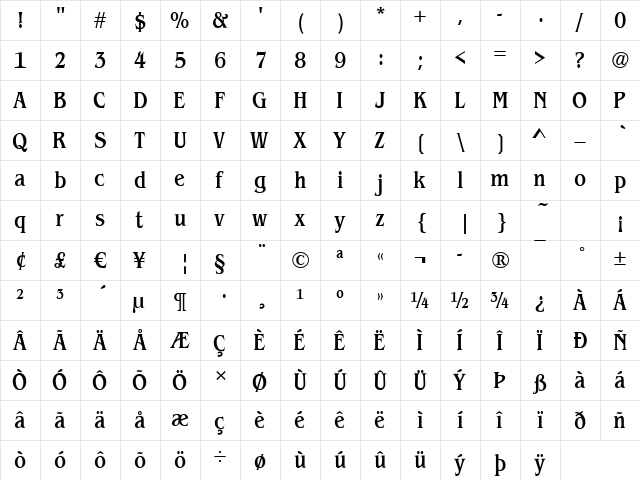
Benjamin-Cd Medium
Design Context for Benjamin-Cd Typeface
Benjamin-Cd takes a measured approach to typography — its balanced proportions and neutral character make it a reliable workhorse for both digital and print work.
Pro Tip: Use Benjamin-Cd in both headline and body roles to test its range before committing to a single application.